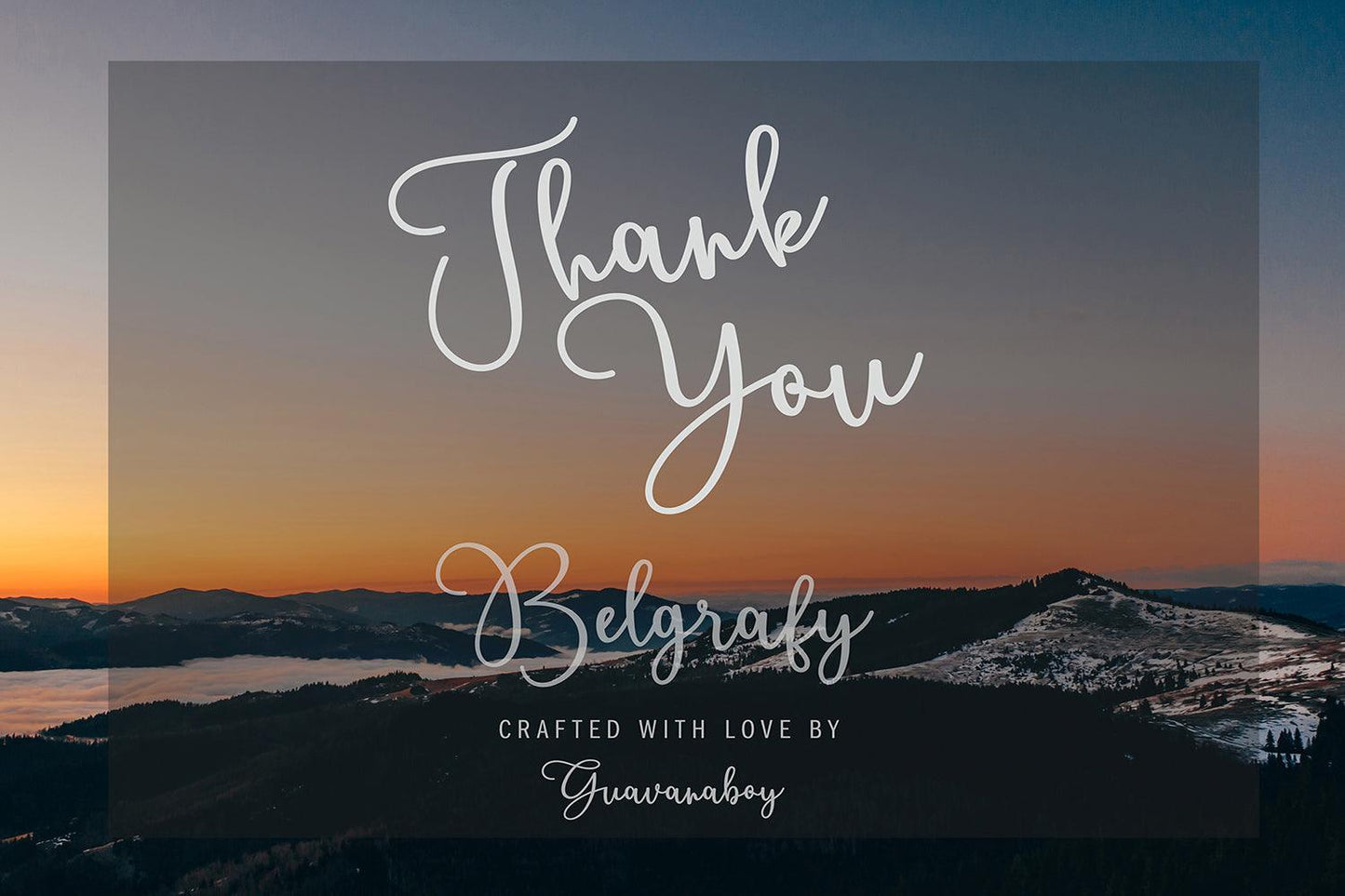
Belgrafi - Hand Lettered Font
Introducing Belgrafi, a beautifully crafted Hand-Lettered Font that blends artistic charm with versatility. Perfect for projects that need a personal, handwritten touch, Belgrafi is ideal for branding, wedding invitations, logos, social media graphics, and more. With its flowing curves and natural strokes, this font exudes warmth and creativity, making it a must-have for any designer or DIY enthusiast.
- Complete Character Set: Includes uppercase, lowercase, numbers, punctuation, and multilingual support.
- Bonus Ligatures and Swashes: Add unique stylistic elements to enhance your designs.